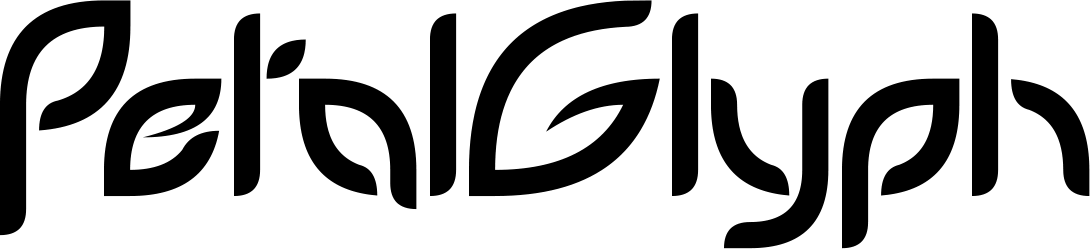
Petal Glyph Font
The beauty of texts is doubled when the unique font comes with a catchy look. This leaf font is inspired by the symbolic shapes of leaves, petals, and stems to give your texts a more organic and natural feel. Despite being unreadable, would contribute to many decorative poster designs, logos, branding, and the fashion industry.
My first completed font. I wanted something slightly futuristic, but not digital or industrial in design. I decided to go more organic and derive the shapes from iconic leaf, petal, and stem shapes.